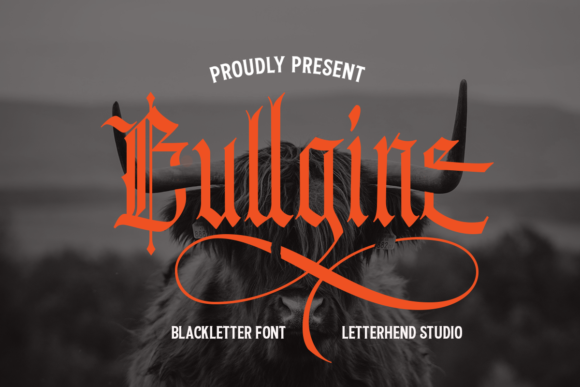
Bullgine: An Elegant Blackletter Typeface for Editorial Design
The cursor blinked on the screen, waiting. I was deep into a redesign project for a lifestyle publication that had grown stale over the years. The content was rich—thoughtful essays on slow living, heritage recipes, and artisanal crafts—but the visual identity felt disconnected from the soul of the writing. The existing headers were too generic, lacking the gravitas and texture the stories deserved. I needed a typeface that could bridge the gap between modern digital consumption and the timeless feel of printed heritage. That is when I opened the folder containing Bullgine.
From the moment I typed the first headline, the mood of the entire layout shifted. Bullgine is not just another display font; it is an elegant and authentic blackletter that carries a distinct rhythm. Unlike some gothic styles that can feel aggressive or overly ornate, this font possesses a refined cadence. It feels like ink settling into high-quality paper. For a publisher or blogger looking to elevate their brand identity, finding a font with this level of personality is rare. It immediately established a sense of authority and tradition without sacrificing readability.
Establishing Visual Hierarchy in Digital Layouts
In editorial design, the primary challenge is guiding the reader's eye through the content. A strong visual hierarchy is essential, especially when dealing with long-form articles or complex guides. I decided to use Bullgine specifically for the main article titles and section breakers. Because it is a display font with high contrast and intricate details, it naturally commands attention. When a reader scrolls past a wall of text, the sharp, angular beauty of a blackletter header acts as a visual anchor.
However, using such a distinctive font requires balance. I quickly realized that Bullgine works best when given space to breathe. In the initial drafts, I tried using it for subheadings as well, but the effect was overwhelming. The true power of this creative font lies in its selective application. By reserving it for the most important headlines and pull quotes, I allowed the typography to sing rather than shout. This approach transformed the reading experience from a passive scan into an engaging journey, where each new section felt like the turning of a page in a cherished book.
Ideal Applications for Publishers and Creators
The versatility of Bullgine extends far beyond simple blog headers. As I experimented with different layouts, I envisioned how this premium font could serve various types of content creators. For instance, imagine a recipe ebook where the chapter titles are set in this authentic blackletter style. It instantly evokes a sense of heritage and care, suggesting that the recipes inside are time-tested and valuable. Similarly, for a wedding guide or a printable planner, the font adds a layer of sophistication and ceremony that standard sans serif fonts simply cannot match.
Consider the following scenarios where Bullgine shines:
For course creators selling PDFs or digital downloads, the choice of typography directly impacts how the product is perceived. A workbook titled with Bullgine feels less like a temporary handout and more like a keepsake. This psychological shift is crucial for independent content brands trying to build loyalty and trust with their audience.
Readability and Technical Considerations
While the aesthetic appeal of blackletter fonts is undeniable, practical usability is equally important. One concern often raised about gothic styles is their legibility on screens. During my testing phase, I paid close attention to how Bullgine rendered on different devices. At larger sizes, the details are crisp and clear. However, for body copy or long paragraphs, it is generally advisable to pair this display font with a highly readable serif font or a clean sans serif font.
I paired Bullgine with a classic humanist sans serif for the navigation and captions, and a warm serif for the main body text. This combination created a harmonious font pairing that felt both modern and rooted in tradition. The contrast between the intricate blackletter headers and the simple, open body copy ensured that the reader never felt fatigued. For mobile layouts, I made sure to increase the line height and letter spacing slightly when using Bullgine to prevent the dense strokes from merging on smaller displays.
When exporting for print or creating high-resolution PDFs, the vector quality of the font held up beautifully. There was no pixelation or loss of detail, which is critical for professional editorial design. Whether the final output is a screen-based newsletter or a physically printed guide, the integrity of the typeface remains intact.
Building a Consistent Brand Identity
Consistency is the cornerstone of strong branding. Once I integrated Bullgine into the style guide, the entire publication began to feel more cohesive. Every new graphic, every social media post, and every email header shared a common visual language. This consistency helps readers recognize the content instantly, even before they read the byline. For bloggers and publishers, this kind of instant recognition is invaluable.